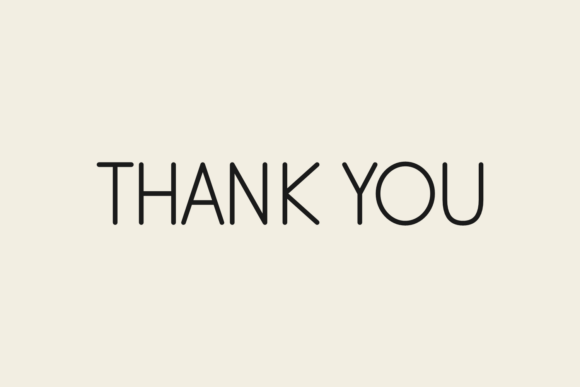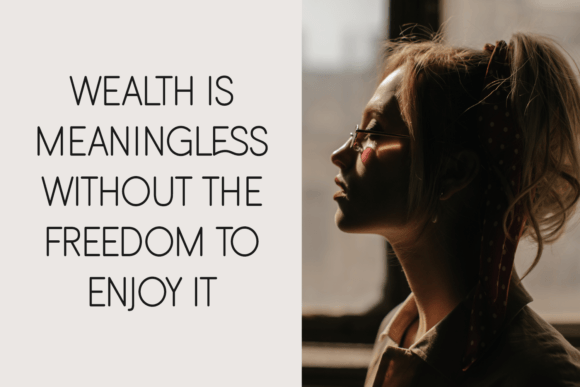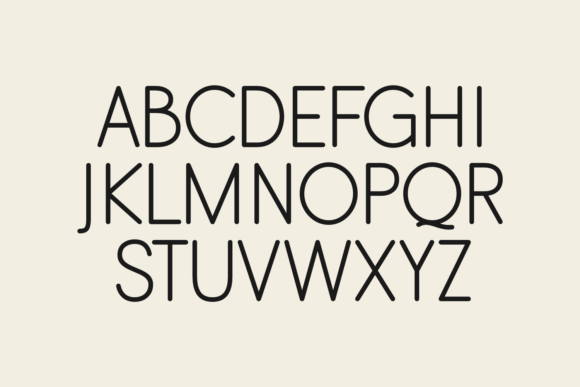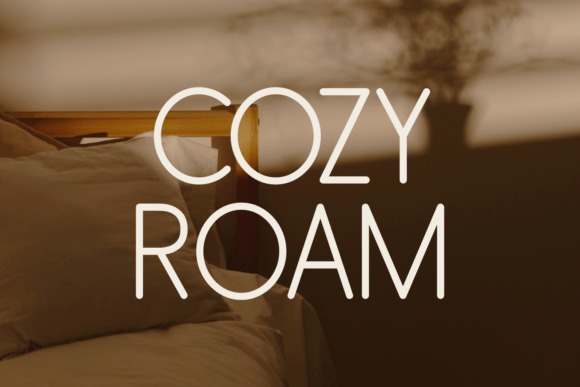
Aulones Font: Elevate Your Designs with Elegance and Sophistication
In the world of typography, a font can make or break a design. Aulones Font is a sleek and stylish sans serif font that has been gaining popularity among designers and crafters alike. Its clean lines, modern look, and effortless elegance make it the perfect choice for headlines, logos, and any design that needs a touch of sophistication.
The Characteristics of Aulones Font
Aulones Font boasts a simple yet refined style that gives a contemporary feel to any project. Its sans serif design ensures that the text is easy to read, making it ideal for body text, headings, and titles. The font’s clean lines and minimalist approach create a sense of elegance and poise, perfect for designs that require a touch of luxury.
Perfect for Headlines and Logos
Aulones Font is particularly well-suited for headlines and logos, where its modern look and stylish aesthetic can truly shine. The font’s bold and confident appearance makes it perfect for grabbing attention, while its clean lines ensure that the text remains legible even at smaller sizes. Whether you’re designing a logo for a new brand or creating a headline for a website or advertisement, Aulones Font is an excellent choice.
Why Designers and Crafters Love Aulones Font
So, what makes Aulones Font a favorite among designers and crafters? Here are just a few reasons:
- Versatility: Aulones Font is incredibly versatile, making it suitable for a wide range of design projects, from branding and advertising to packaging and digital media.
- Elegance: The font’s sleek and stylish design adds a touch of elegance to any project, making it perfect for designs that require a level of sophistication.
- Readability: Aulones Font is incredibly easy to read, even at smaller sizes, making it perfect for body text and headings.
- Customization: The font’s simple yet refined style makes it easy to customize and manipulate, allowing designers to create unique and personalized designs.
How to Use Aulones Font in Your Designs
Using Aulones Font in your designs is easy. Here are a few tips to get you started:
- Pair it with other fonts: Aulones Font pairs well with a variety of other fonts, making it easy to create unique and visually appealing combinations.
- Experiment with different sizes: The font’s clean lines and simple design make it suitable for use at a range of sizes, from small body text to large headlines.
- Play with color: Aulones Font looks great in a variety of colors, so don’t be afraid to experiment and find the perfect hue for your design.
Aulones Font is a sleek and stylish sans serif font that is perfect for designers and crafters looking to add a touch of elegance and sophistication to their designs. Its clean lines, modern look, and effortless elegance make it the perfect choice for headlines, logos, and any design that needs a touch of luxury. With its versatility, readability, and customization options, Aulones Font is an excellent addition to any designer’s toolkit.
Key Features of Aulones Font
- Sleek and stylish sans serif font
- Clean lines and modern look
- Effortless elegance and sophistication
- Perfect for headlines, logos, and designs that require a touch of luxury
- Easy to read, even at smaller sizes
- Versatile and customizable
Whether you’re a seasoned designer or a crafter looking to elevate your designs, Aulones Font is an excellent choice. Its unique blend of style, elegance, and versatility makes it the perfect addition to any design project.